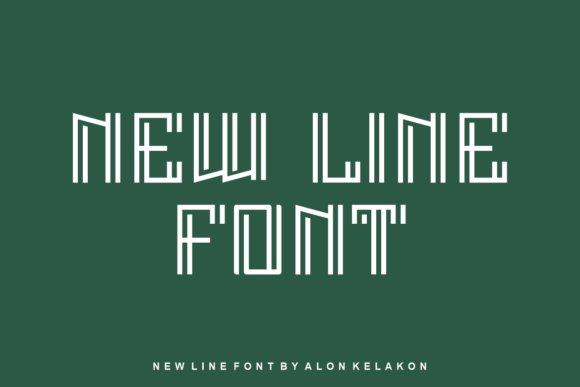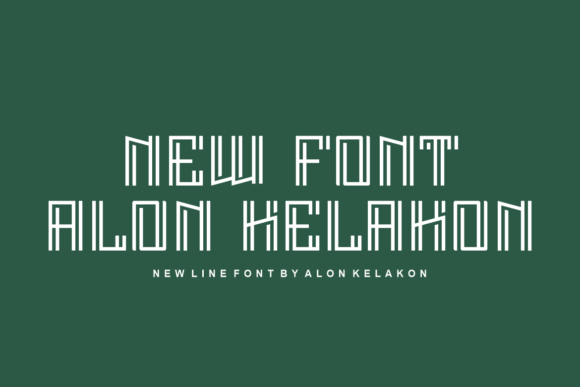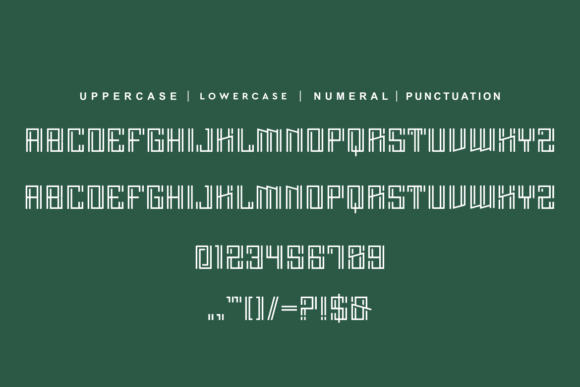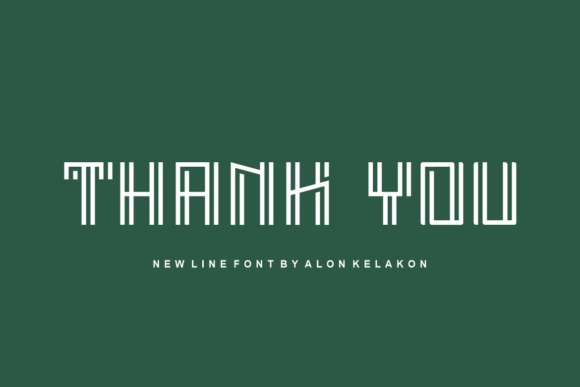
The Ultimate Guide to Garisane Font: Elevate Your Designs with this Modern Display Font
I’ll never forget the moment I stumbled upon the Garisane font. I was working on a project for a client who needed a modern and sleek display font that could bring their brand to life. As I scrolled through my font library, I felt like I was stuck in a sea of sameness – until I saw Garisane. Its unique blend of elegance and playfulness immediately caught my eye, and I knew I had found the perfect fit. In this article, I’ll share my experience with Garisane, its features, and how to make the most of this amazing font.
An Honest Review of Garisane Font
So, what makes Garisane stand out from the crowd? Let’s dive into the good stuff and some minor quirks.
What I Love About Garisane ✨
- ✅ Modern and sleek design: Garisane boasts a fresh and contemporary look that’s perfect for brands that want to appear youthful and vibrant.
- ✅ Highly versatile: This font can be used for a wide range of projects, from logos and branding to posters and social media graphics.
- ✅ Excellent legibility: Despite its modern design, Garisane remains highly legible, even at smaller font sizes.
- ✅ OpenType features: Garisane comes with a range of OpenType features, including stylistic alternates, ligatures, and glyphs.
- ⚠️ Limited use in body text: While Garisane is perfect for display text, it may not be the best choice for body text due to its modern design and potential lack of readability at smaller sizes.
- ⚠️ Some characters may require manual kerning: As with any font, some characters may require manual kerning to achieve optimal results.
The Backstory of Garisane Font
While the true story of Garisane’s creation may be unknown, it’s easy to imagine a designer who was passionate about creating a modern and versatile font. Perhaps they wanted to craft a font that would inspire creativity and bring a fresh perspective to the world of design. Whatever the inspiration, Garisane is a true gem that deserves to be celebrated.
| Author | alonkelakon |
Q: What type of projects is Garisane best suited for?
A: Garisane is perfect for display text, logos, branding, posters, and social media graphics.
Q: Can I use Garisane for body text?
A: While Garisane is highly legible, it may not be the best choice for body text due to its modern design and potential lack of readability at smaller sizes.
Q: Does Garisane come with OpenType features?
A: Yes, Garisane comes with a range of OpenType features, including stylistic alternates, ligatures, and glyphs.